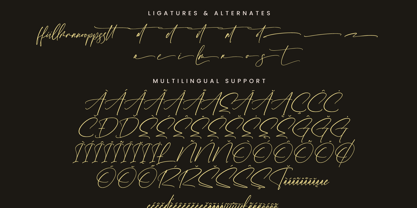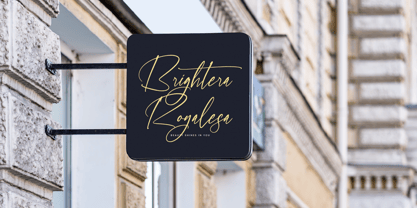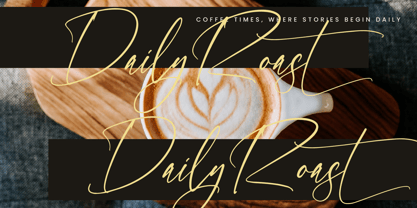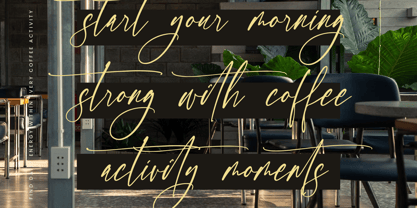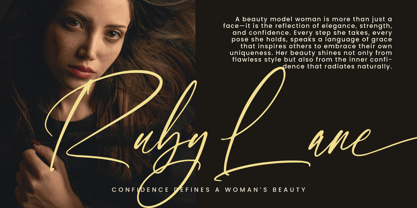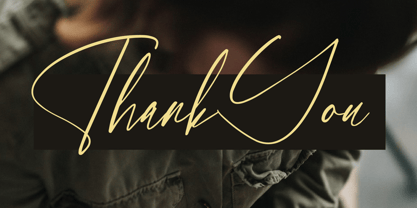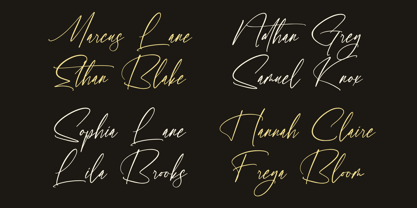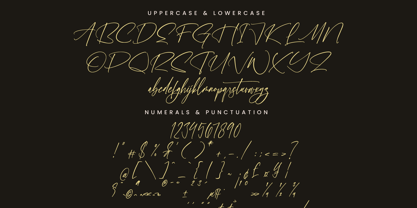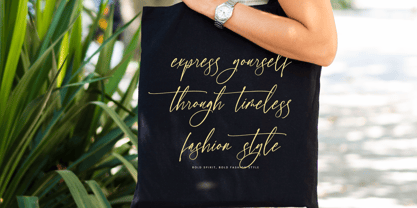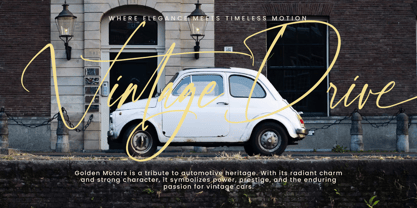
Tomithayen
by Integritype
The Tomithayen Font Family was designed by Dimas Alif Maulana and published by Integritype. Tomithayen contains 2 styles and family package options.
Tomithayen is a modern signature script font crafted by Integritype Studio, ideal for a wide range of creative projects. Whether you're designing logos, branding materials, homeware designs, or product packaging, this font adds a touch of elegance. It's perfect for mugs, quotes, posters, shopping bags, t-shirts, book covers, business cards, invitation cards, greeting cards, labels, photography, watermarks, and special events. Elevate your luxury projects with Tomithayen, a font that embodies premium taste and sophistication.